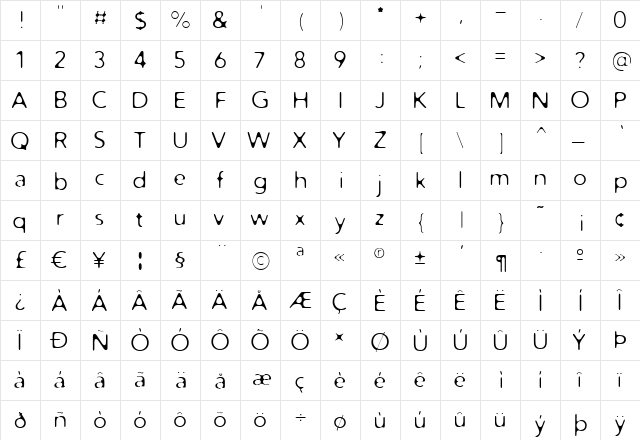
Distro Light Regular
| Designer | Peter Ramsey & Apostrophe |
Design Context for Distro Light Typeface
Distro Light is a composed and adaptable typeface that performs quietly and consistently across a wide range of design contexts. The delicate stroke weight brings airiness and refinement to layouts.